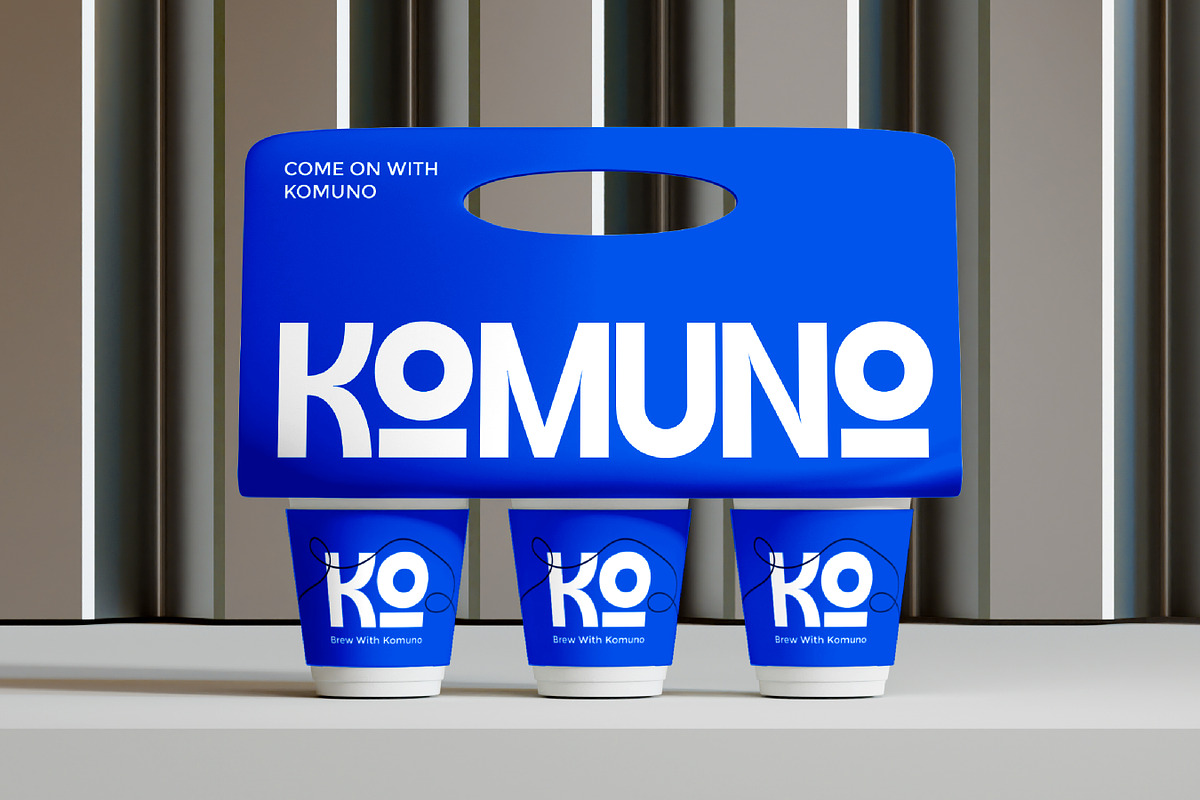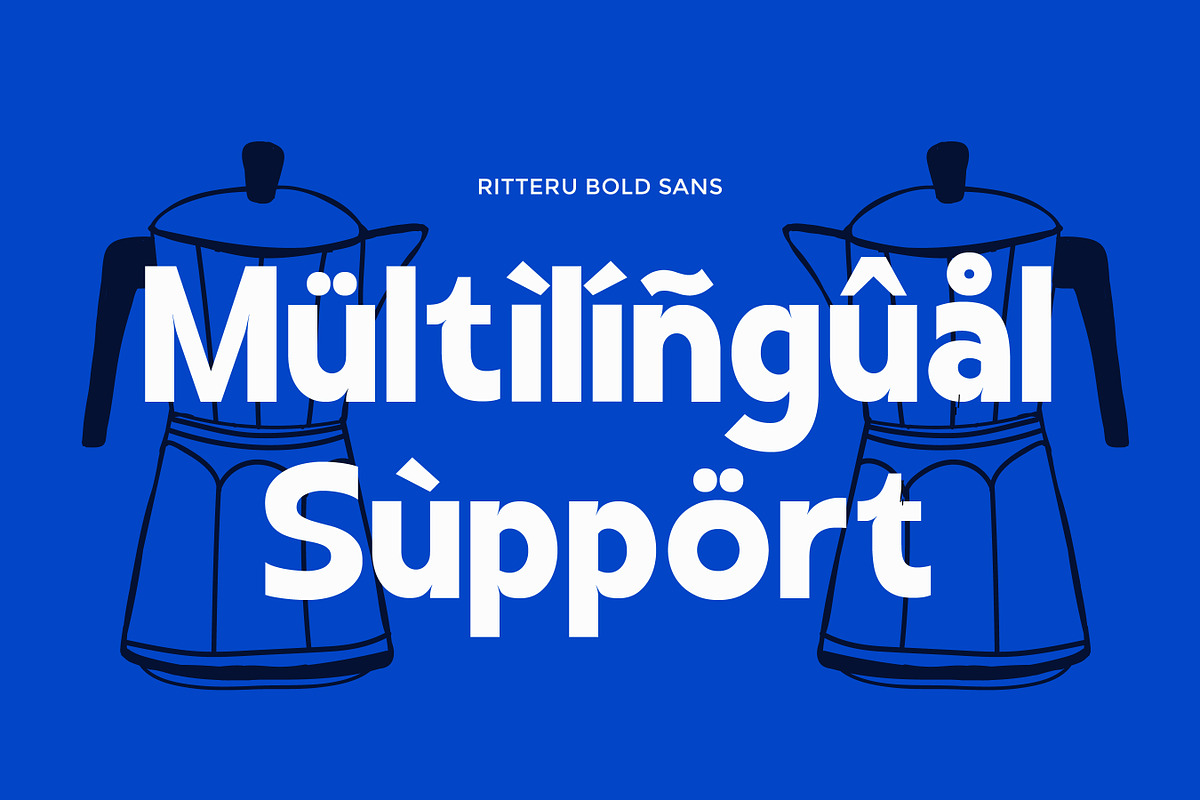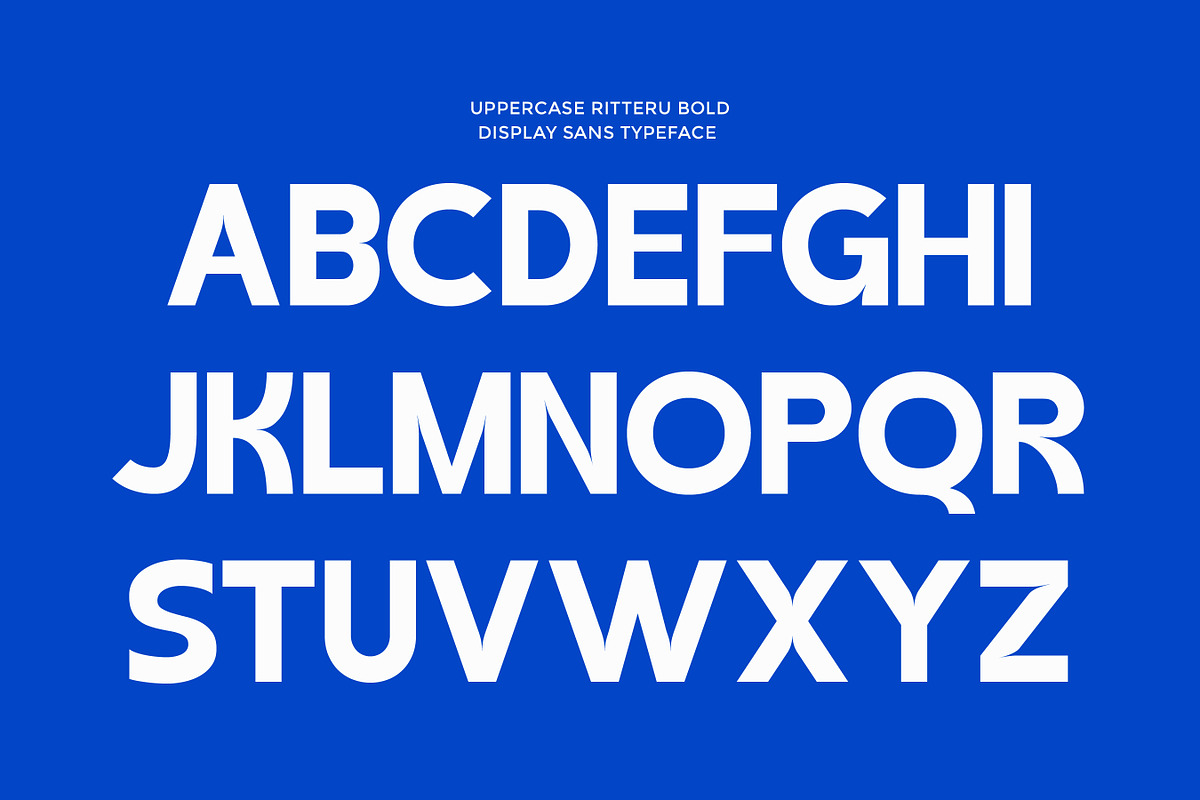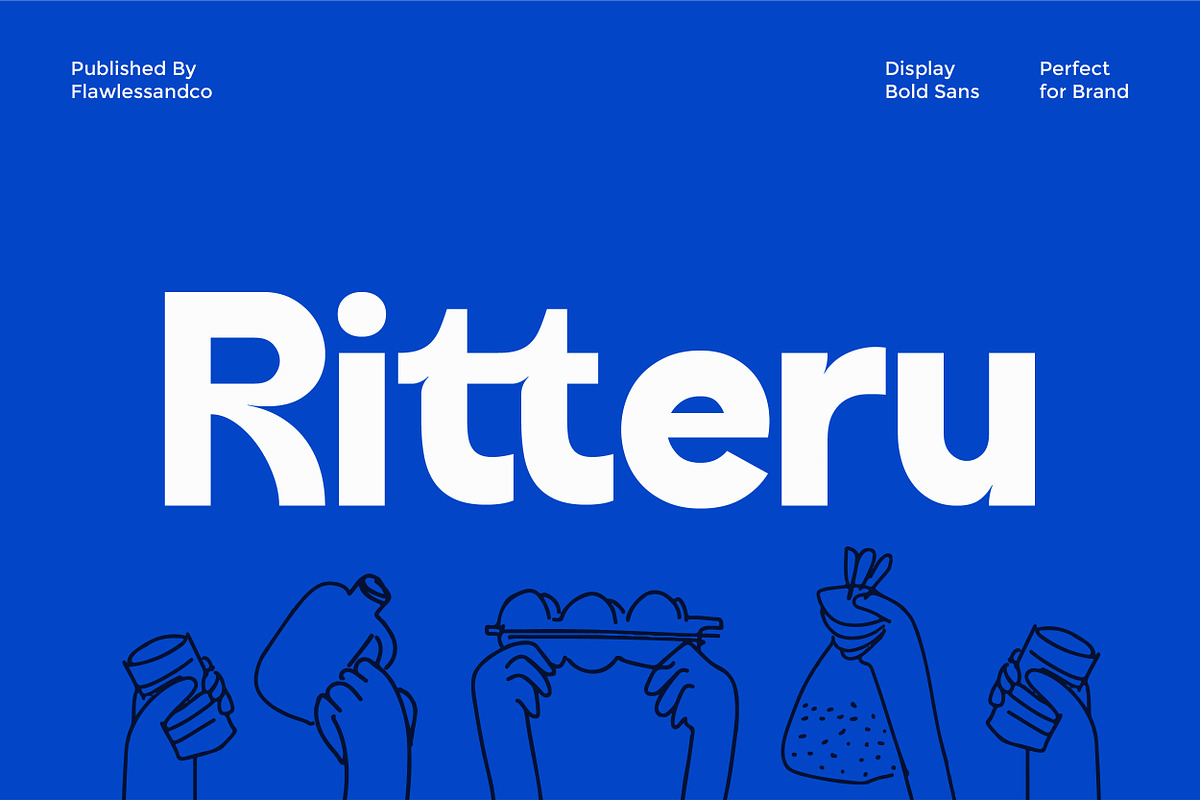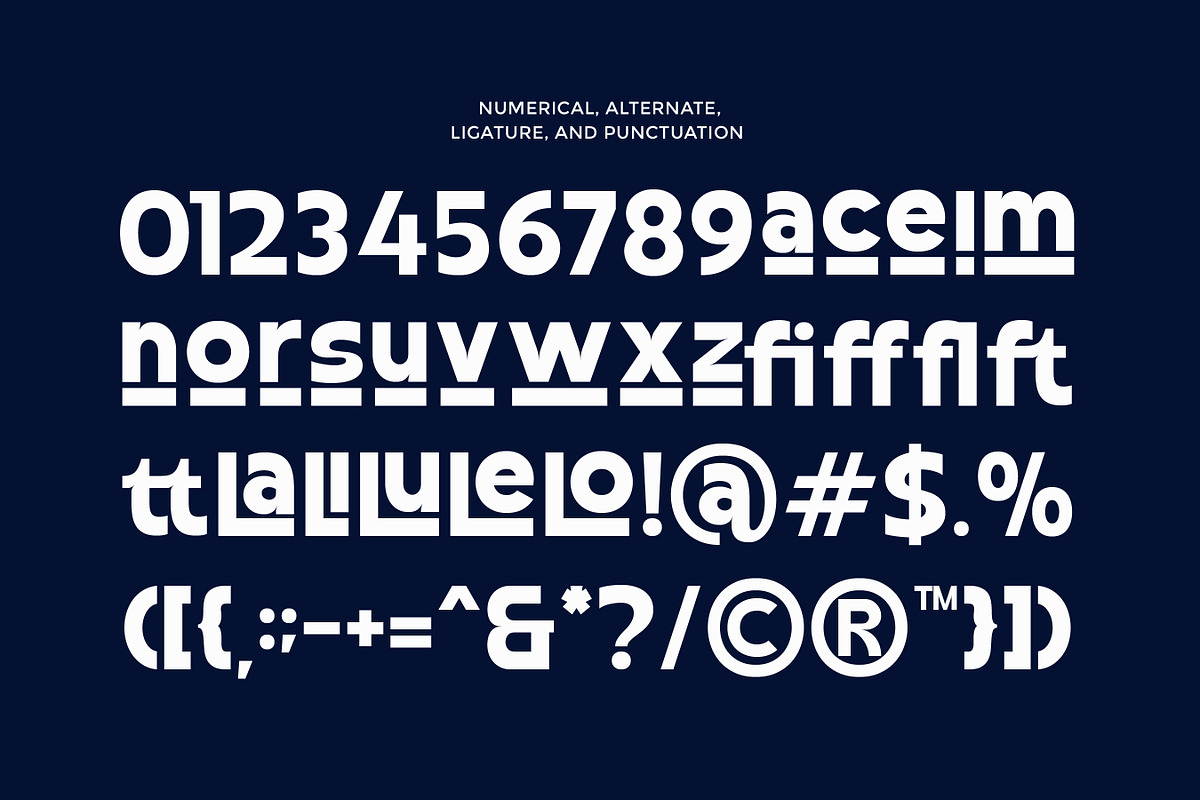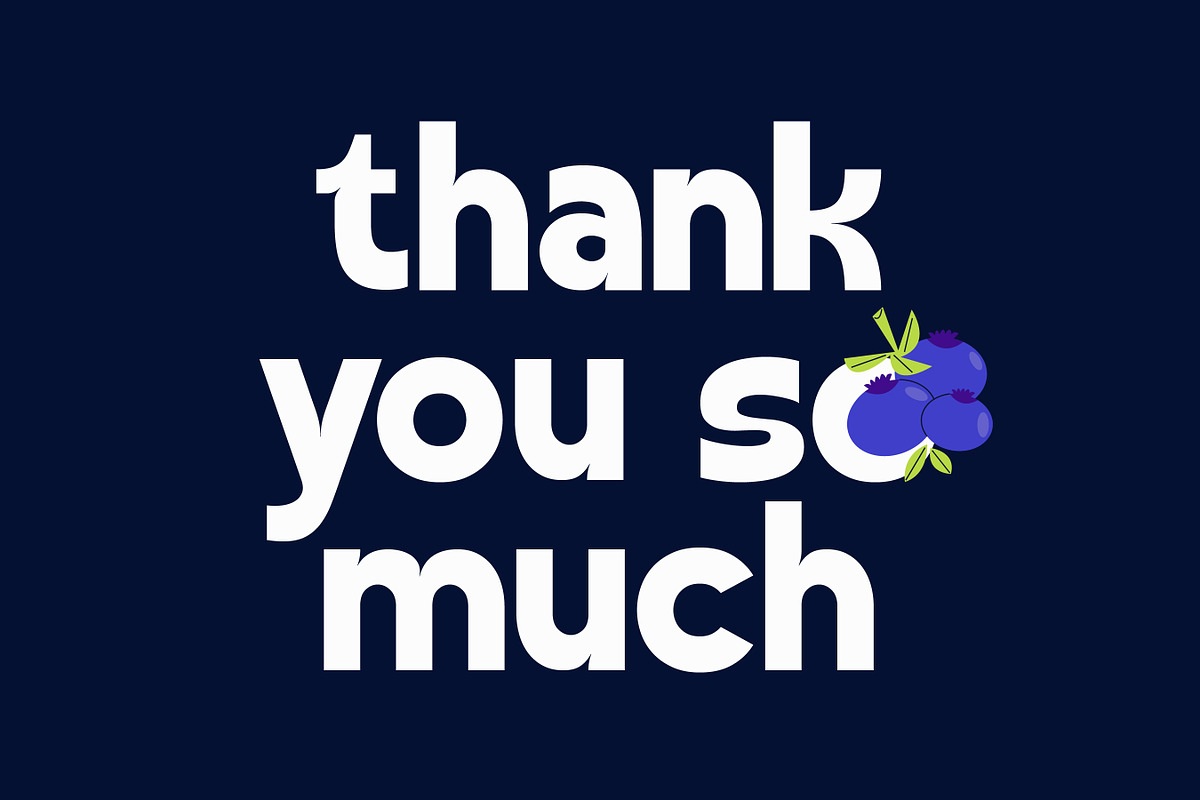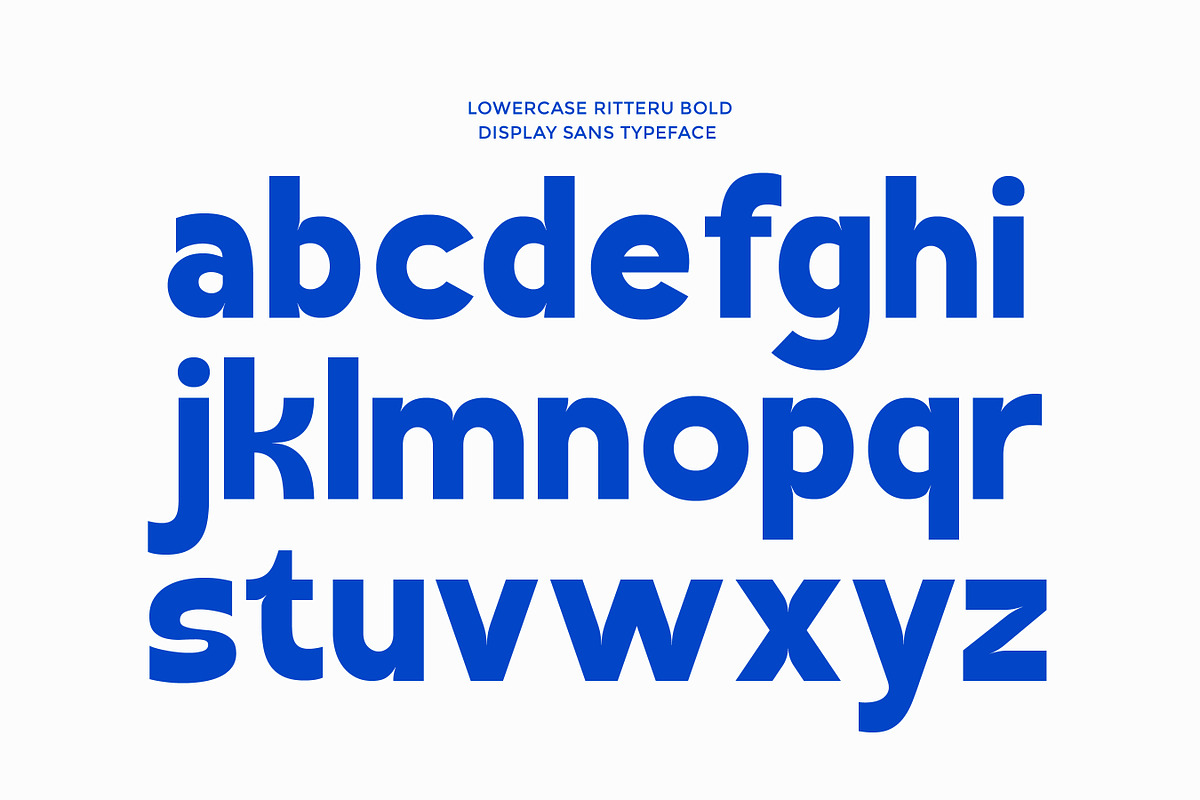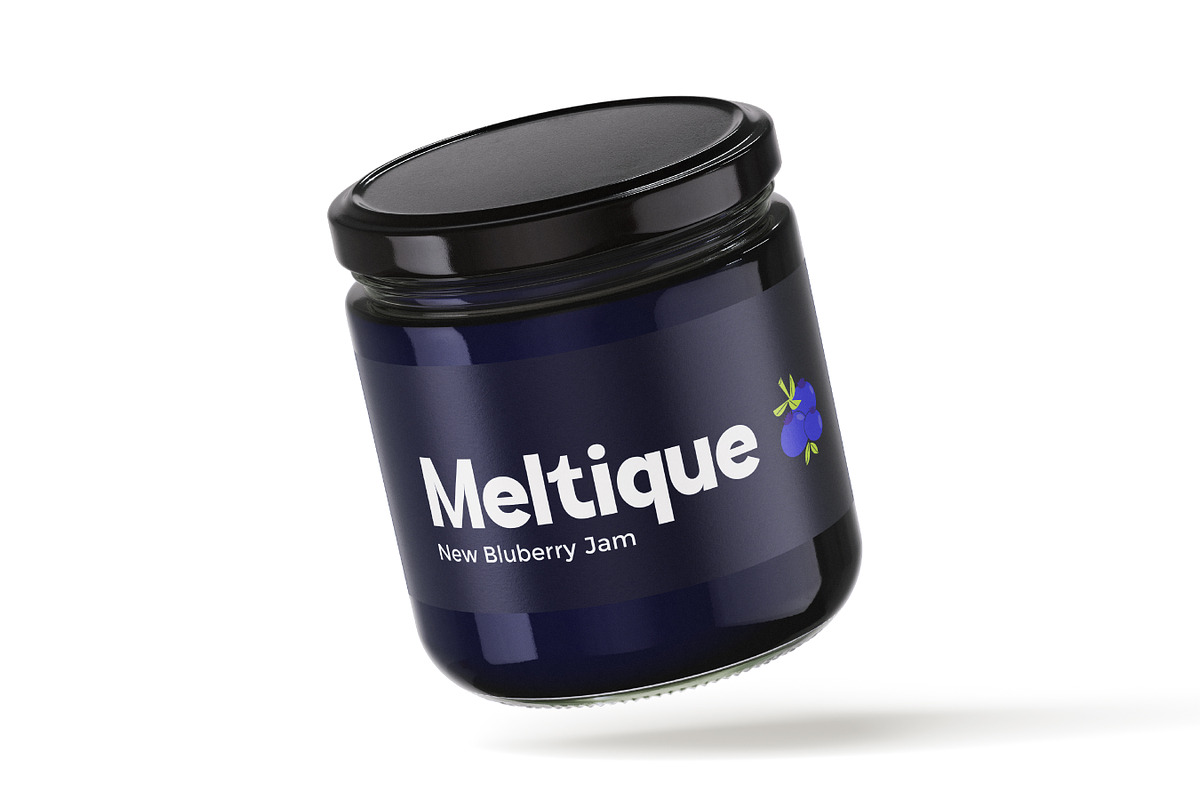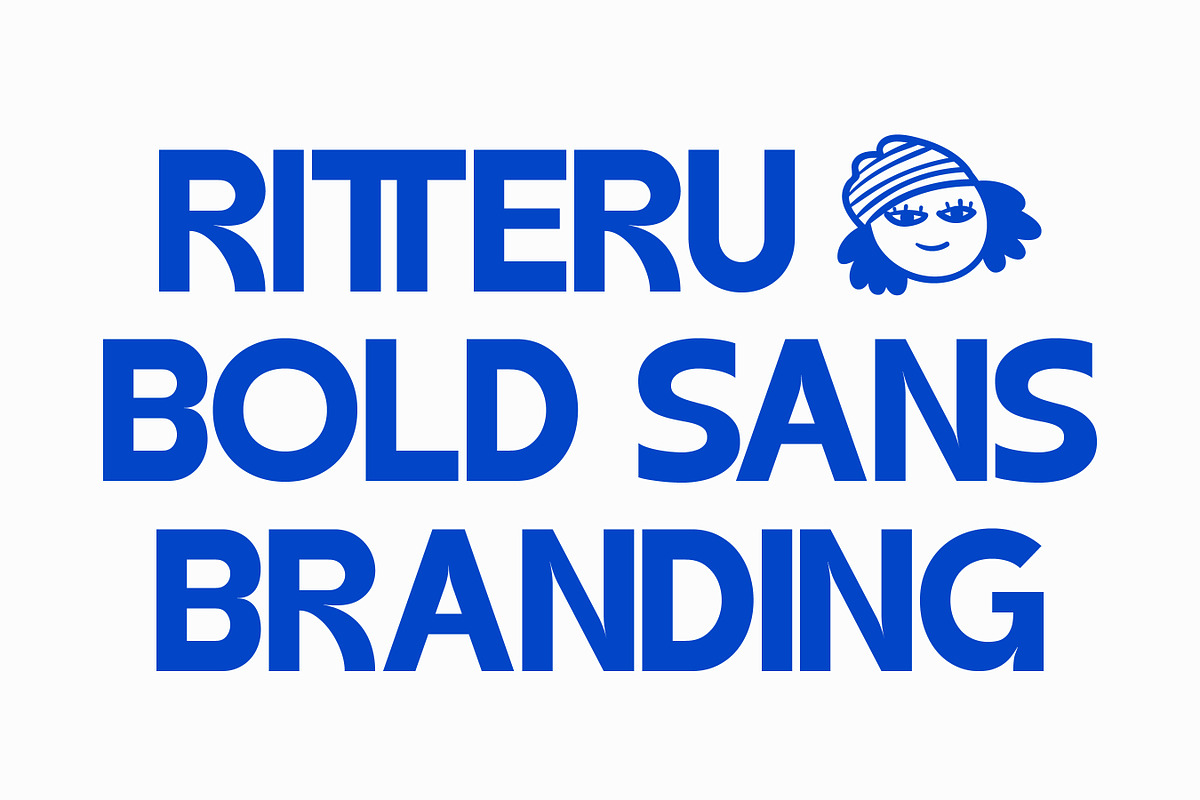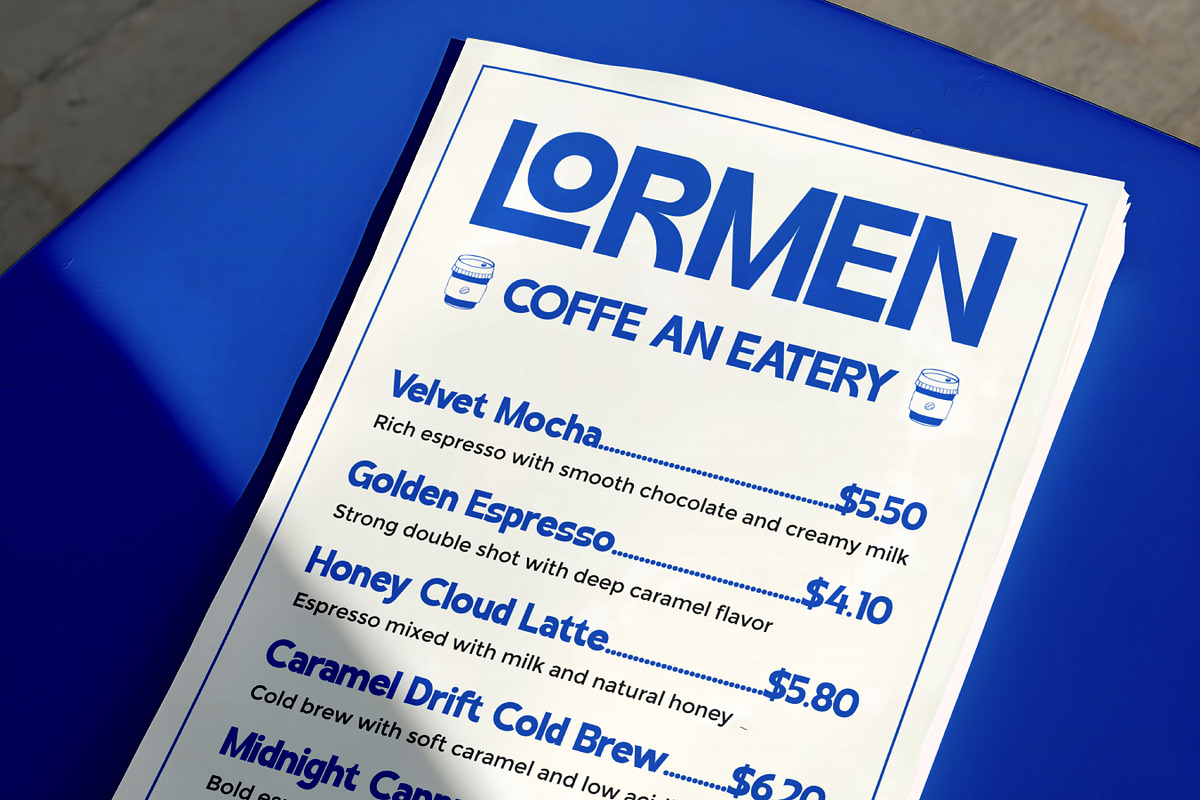
Ritteru – Bold Display Sans Serif Font
Ritteru is a modern bold sans serif display font designed to deliver strength, clarity, and high-impact visuals in every layout. With its clean geometry, confident curves, and strong proportions, Ritteru brings a fresh and contemporary character that stands out effortlessly in both digital and print designs. Every letter is crafted to look striking, readable, and memorable—making Ritteru the perfect choice for designers who want bold statements with a professional edge.
Who Should Use Ritteru?
Ritteru is the perfect choice for designers, creators, and brands who want bold, modern, and attention-grabbing typography. This font is ideal for:
- Brand Designers who need a strong, contemporary typeface for impactful logos, wordmarks, and identity systems.
- Marketing & Advertising Teams looking for bold headlines that instantly draw attention in campaigns, banners, or promo materials.
- Packaging Designers who want clean, modern label designs with a powerful visual presence.
- Social Media Creators aiming for sharp, bold typography that boosts engagement and enhances visual storytelling.
- UI/UX Designers needing a readable yet striking font for hero titles, web headers, and digital interfaces.
A Must-Have Font for “Brand and Logo” Creators and Designers
Ritteru is an essential font for designers who want to build bold, modern, and memorable brand identities. Its strong sans-serif structure gives every logo a clean and confident presence, making it perfect for brands that need to stand out with clarity and style. Whether you're crafting a startup brand, redefining an established business, or building a fresh visual identity, Ritteru delivers the perfect balance of power, simplicity, and modern aesthetics.
Why Choose Ritteru for “Brand and Logo” Projects?
Bold & Memorable Visual Impact Ritteru’s thick, clean strokes create logos that are instantly recognizable and easy to remember—perfect for brands that want to leave a strong impression.
Modern & Professional Aesthetic With its contemporary sans-serif style, Ritteru delivers a sleek, up-to-date look that works beautifully across modern branding, digital platforms, and corporate identities.
Versatile for Many Brand Types Whether it’s tech, fashion, food & beverage, lifestyle, or creative brands, Ritteru adapts effortlessly, making it a reliable choice for multi-industry designers.
Perfect for Clean, Confident Branding Its straightforward yet impactful letterforms help you create identities that feel trustworthy, bold, and timeless—ideal for businesses that value simplicity with strength.
Suitable For
Ritteru is highly versatile and suitable for a wide range of design needs, especially those requiring bold clarity, strong presence, and a modern professional feel, such as:
- Branding & Logo Design – Ideal for creating bold, memorable, and modern brand identities.
- Packaging Design – Works perfectly for products that need clean, confident typography.
- Advertising & Marketing Materials – Great for posters, billboards, banners, and promotional graphics.
- Social Media Content – Perfect for impactful posts, highlight covers, and visual branding.
- Corporate & Business Identity – Suitable for professional stationery, business cards, and brand systems.